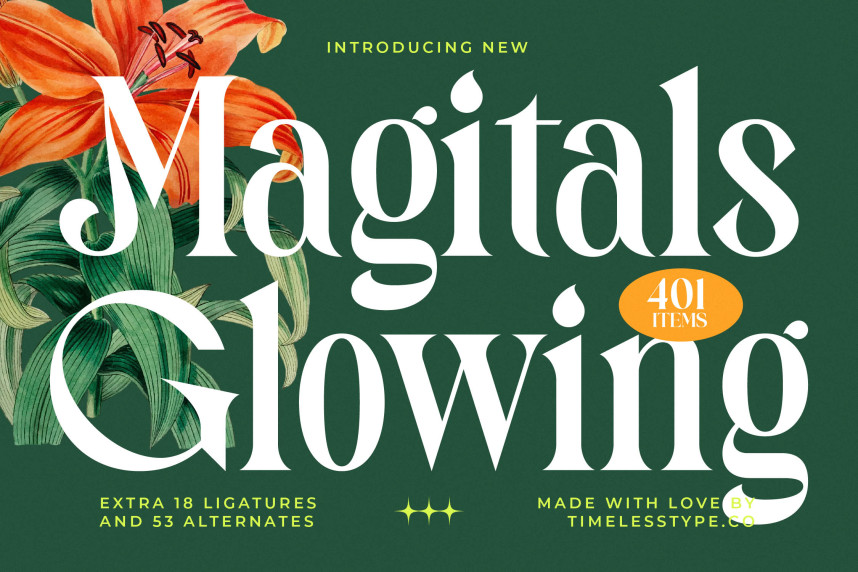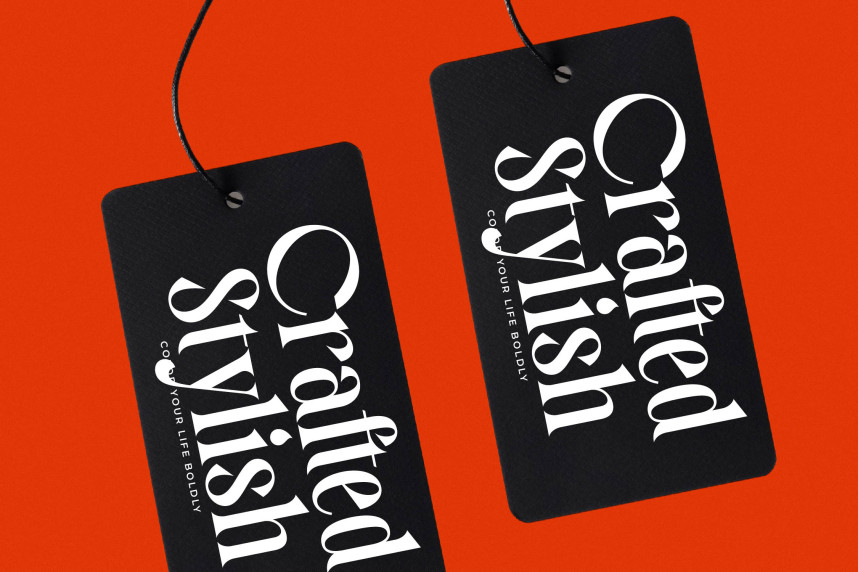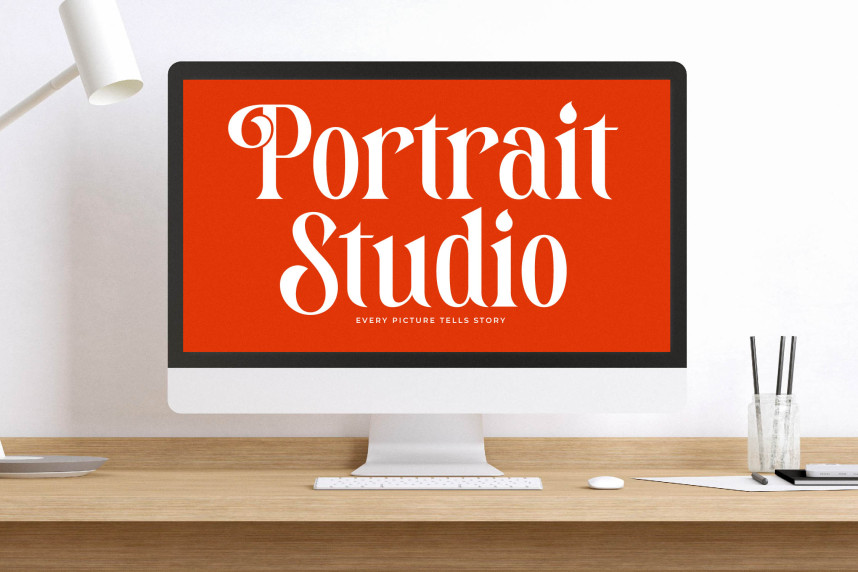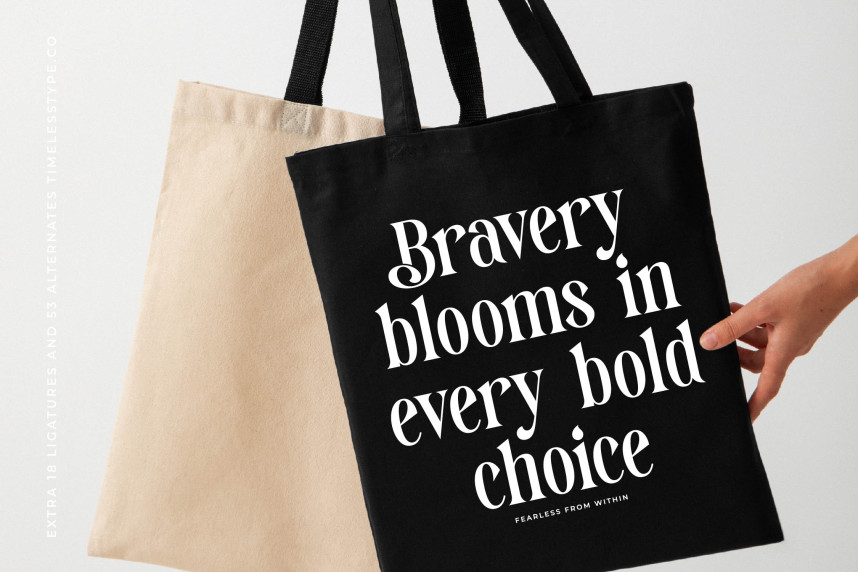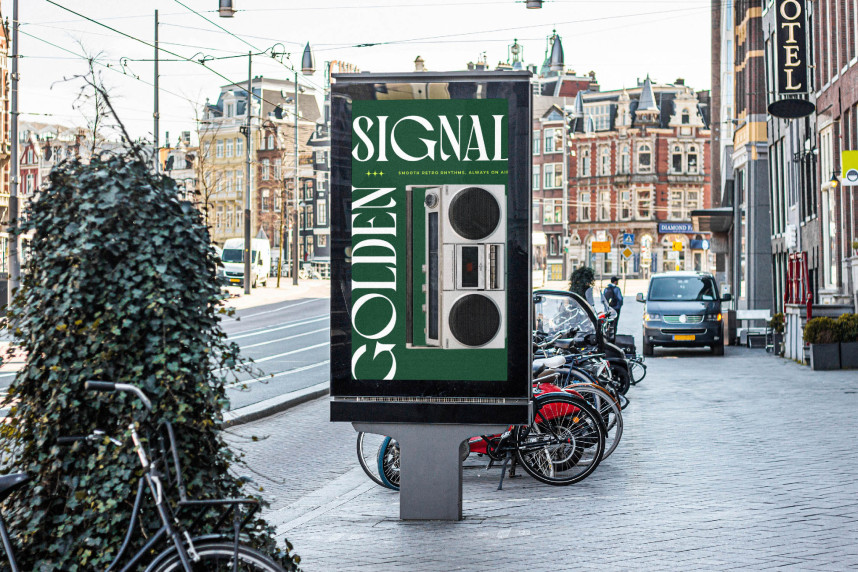
Magitals Glowing Typeface
Magitals Glowing Typeface – New Modern Serif Font Serif Display, a typeface meticulously crafted to command attention and convey prestige. Its striking high-contrast letterforms, elegant serifs, and delicate curves fuse classic serif appeal with a distinctly modern display aesthetic, making it an instantly captivating choice for any design that demands a premium feel.
Elevate your designs with unparalleled typographic richness and flexibility. Font Magitals Glowing – New Modern Serif Font Serif Display offers an impressive suite of 18 ligatures and 53 alternates, empowering designers with extensive customization options to create truly unique design expressions. This extensive character set ensures that every headline, logotype, or branding element achieves a bespoke, polished finish that sets it apart.
Discover boundless global potential with its truly expansive language capabilities. With its extensive multilingual support, Font Magitals Glowing – New Modern Serif Font Serif Display adapts seamlessly across global markets, making it incredibly versatile for international projects and ensuring your message resonates universally without compromise. This global adaptability is a key asset for brands targeting diverse audiences.
Perfect for making an unforgettable statement, Font Magitals Glowing – New Modern Serif Font Serif Display is ideally suited for luxury branding, high-end packaging, editorial design, fashion magazines, sophisticated advertising, and impactful headlines. Its refined presence is superb for creating striking web headers, product labels, and any application where visual storytelling requires an air of distinguished elegance.